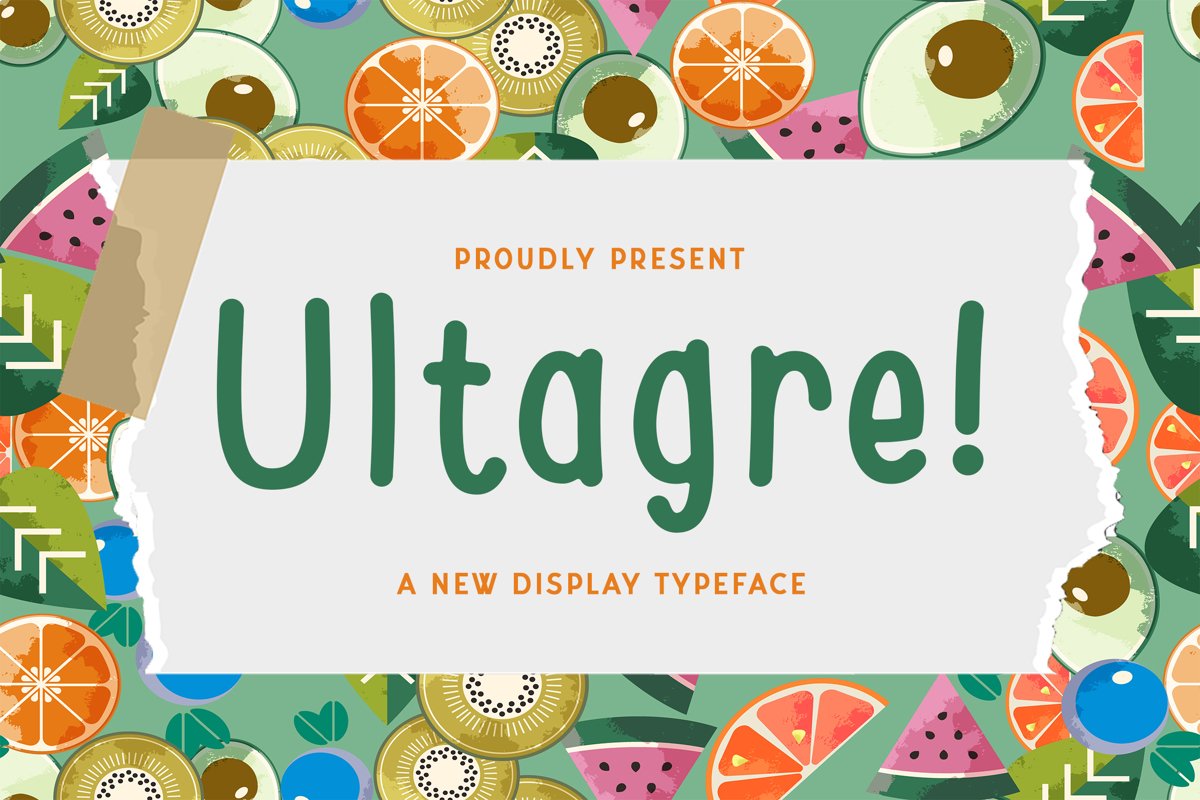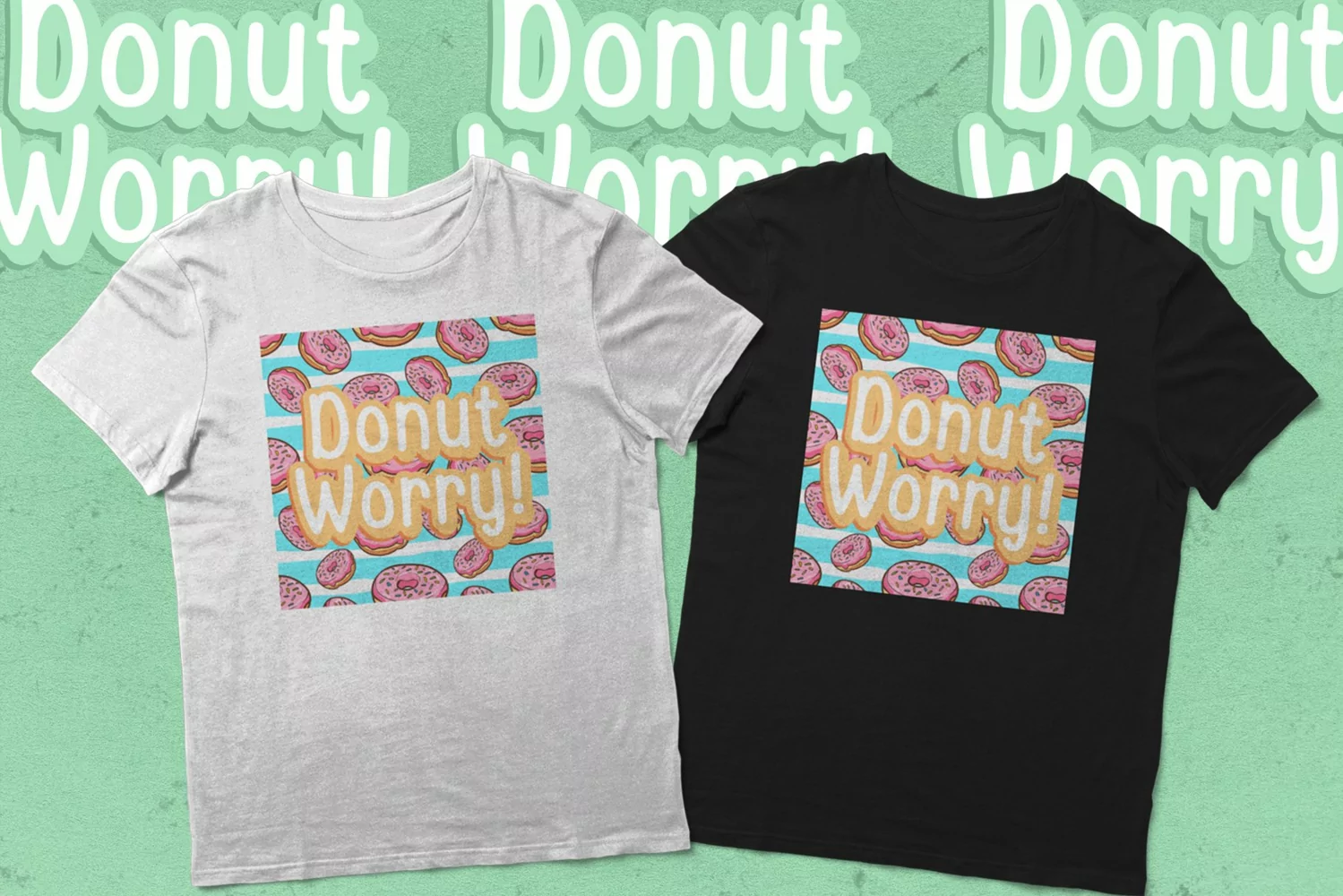
Ultragre is a display typeface. perfect for display, quotes, packaging, logo, logotype, header, tittle, merchandise, mug, pillow, print, t-shirt, business card, craft needs, and many more.